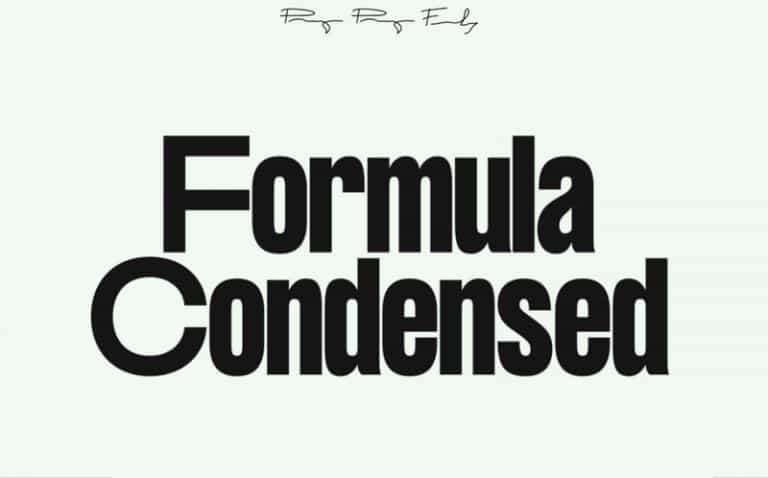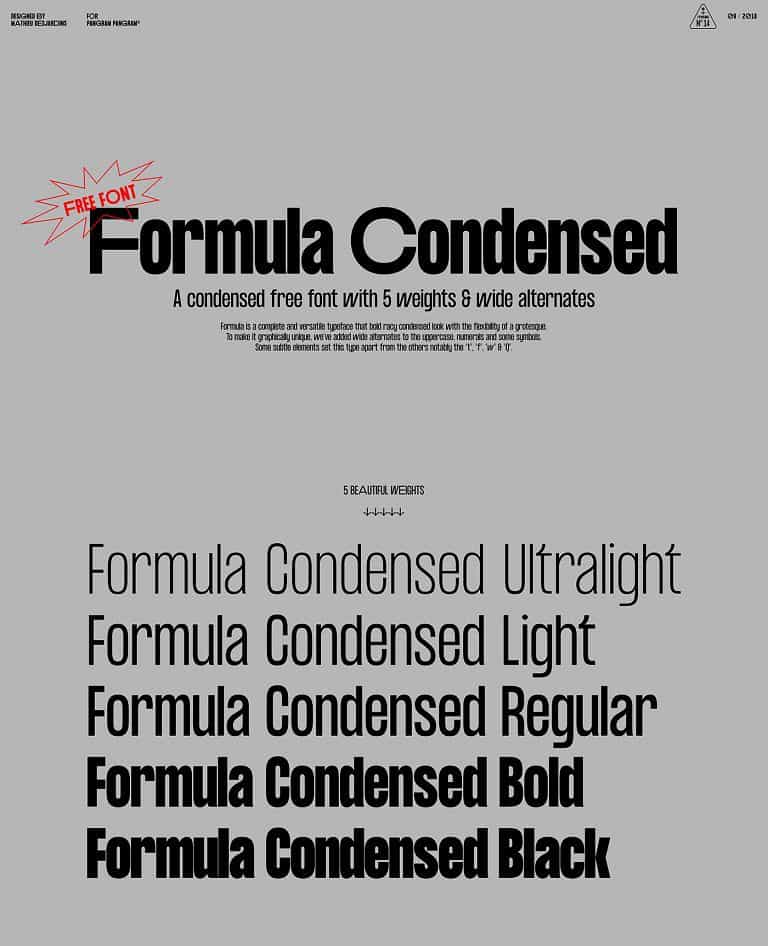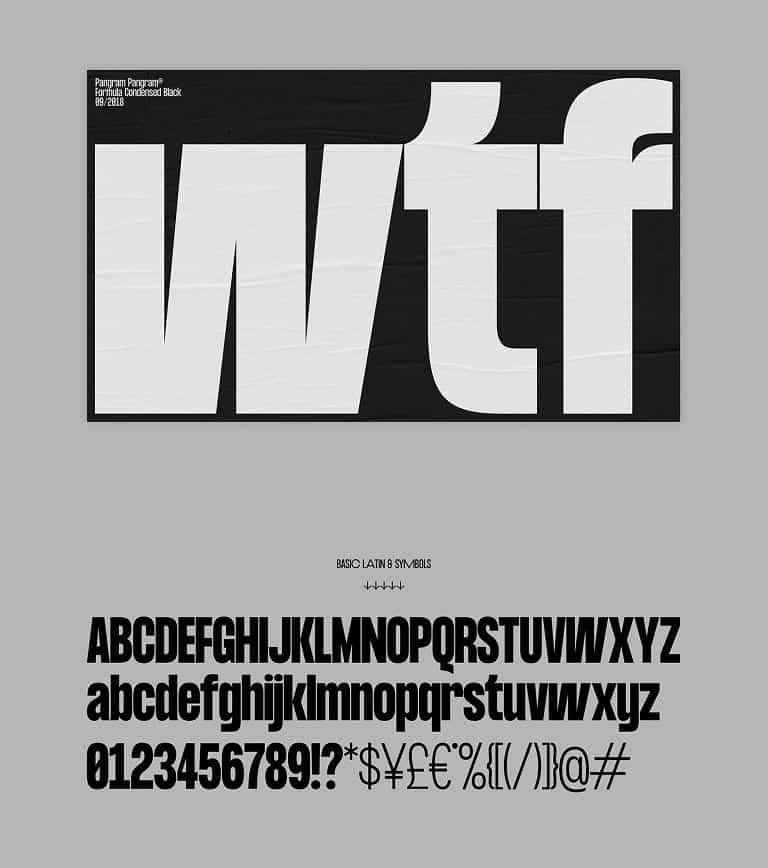
Formula is a free and open-source font which has five weights and many wide alternatives. Formula is a font which includes both the stylized features and, at the same time, has grotesque flexibility.